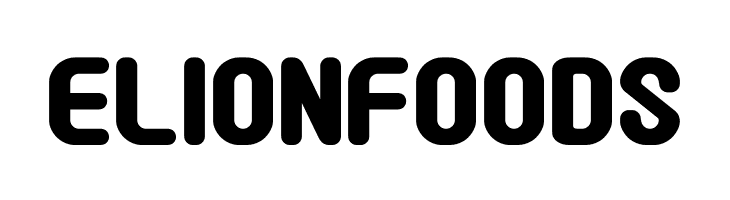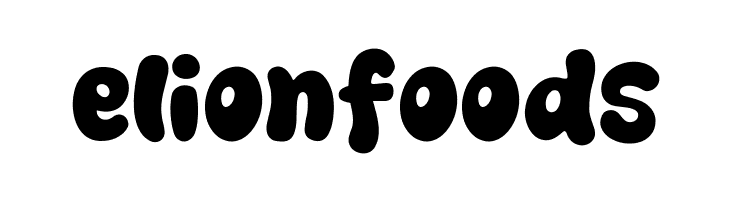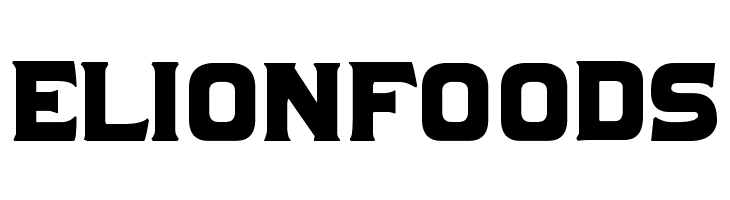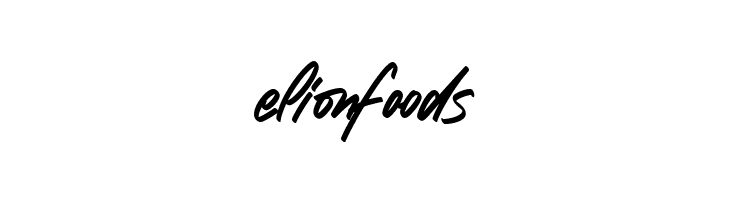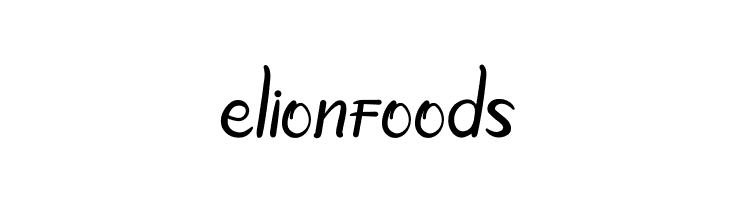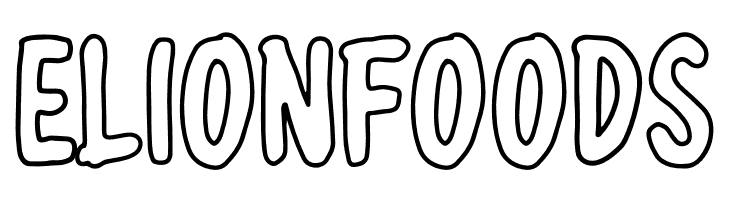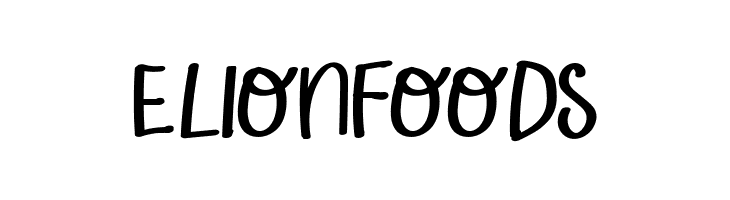
A bold, rounded font with a playful and modern aesthetic.
A playful, rounded font with smooth curves and a modern touch.
A bold, playful font with thick, rounded characters and a bubbly appearance.
A bold, modern display font with strong, block-like characters.
A bold outline font with a modern yet vintage flair, featuring hollow interiors and consistent character width.
A bold, flowing script font with a dynamic, handwritten style.
A bold, monospaced typewriter-style font with a vintage charm.
A casual, handwritten font with a playful and dynamic style.
A playful, outlined font with a hand-drawn, whimsical style.
A playful, casual handwritten font with smooth, rounded edges.